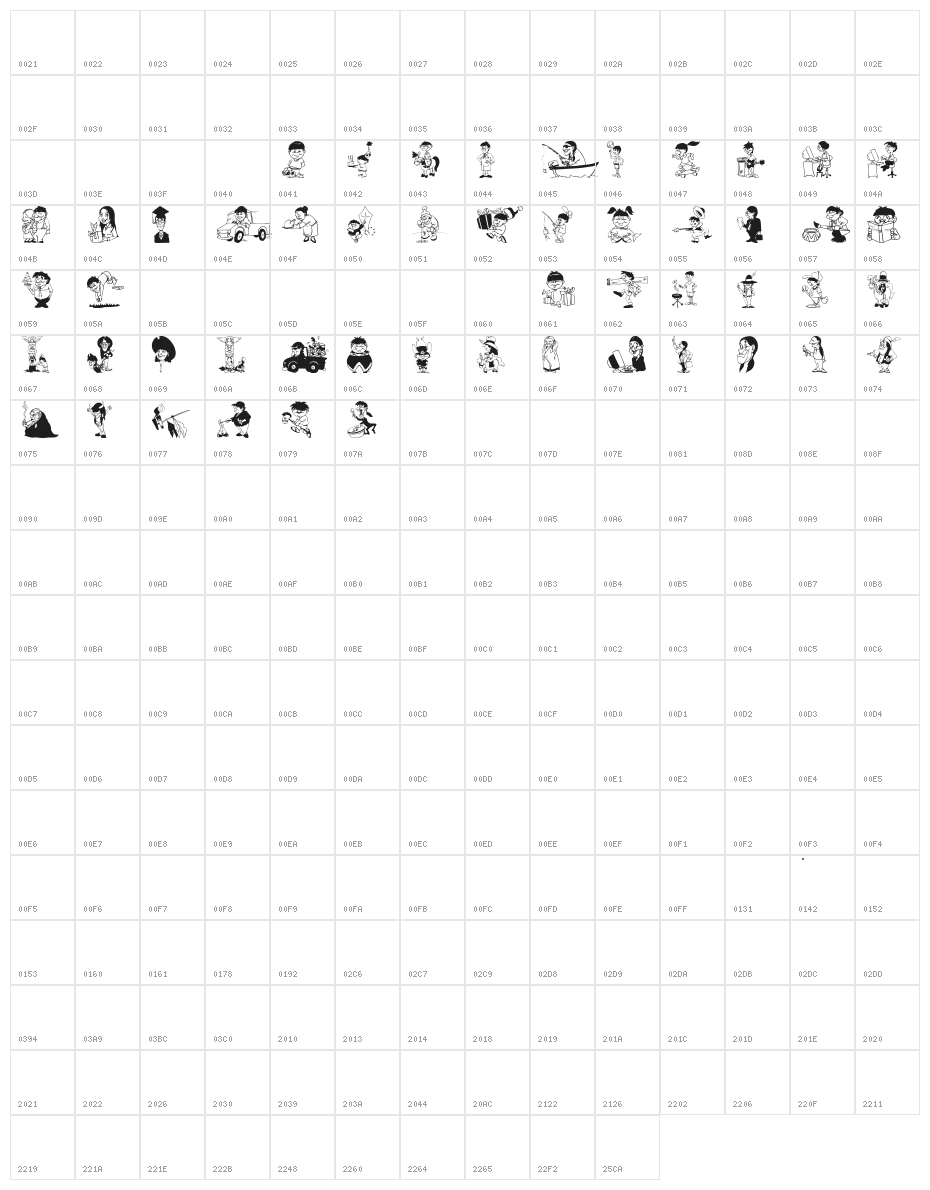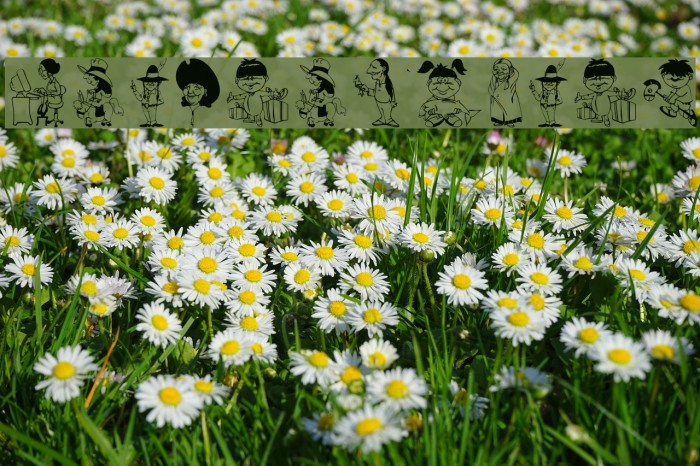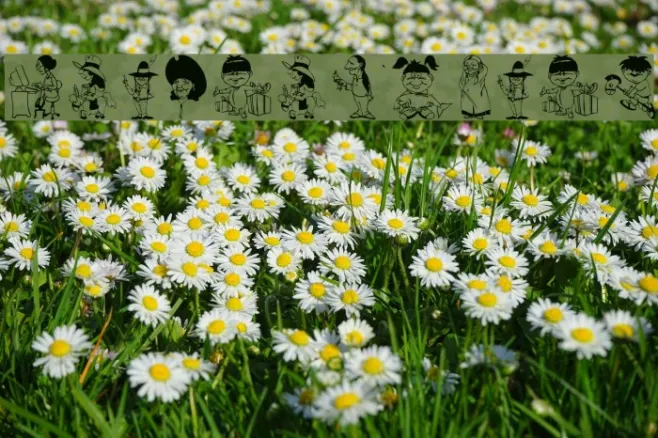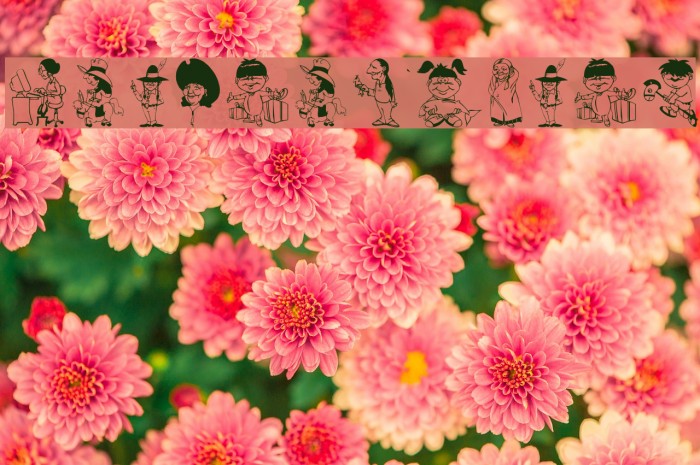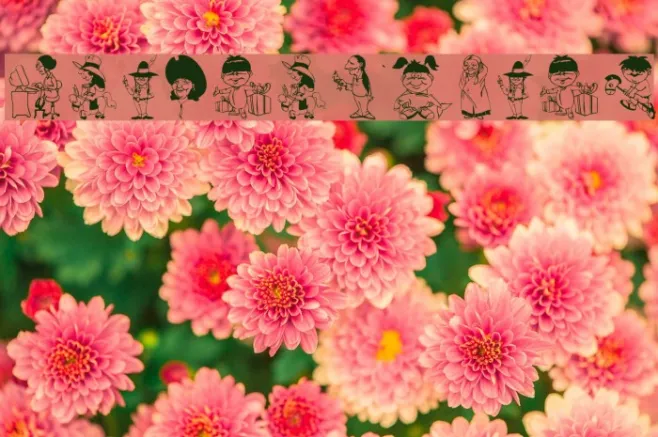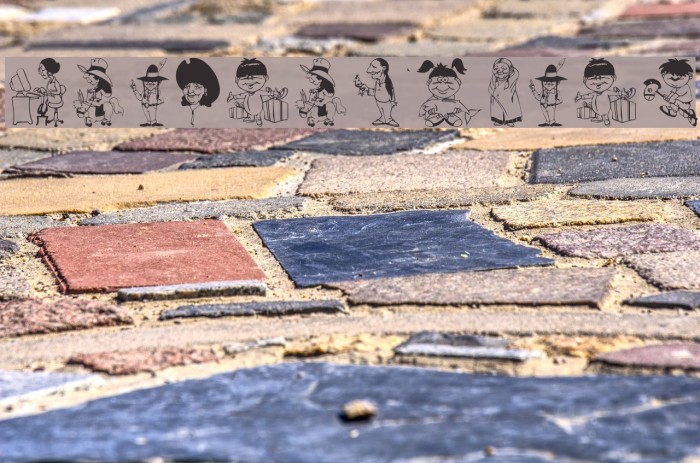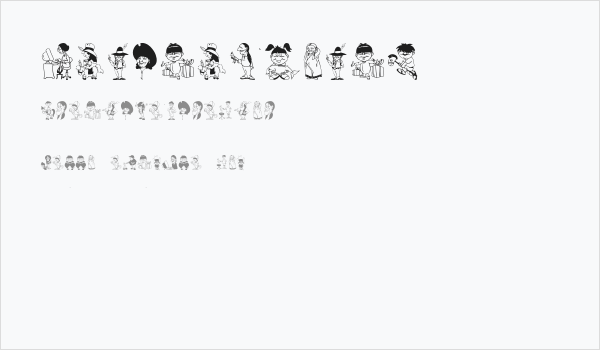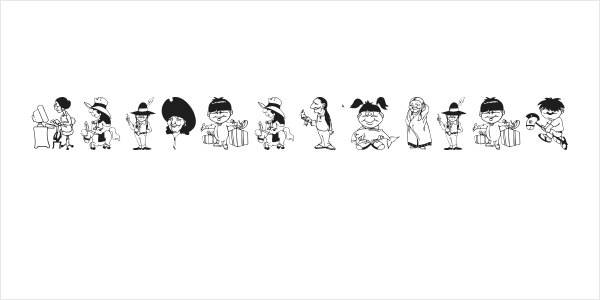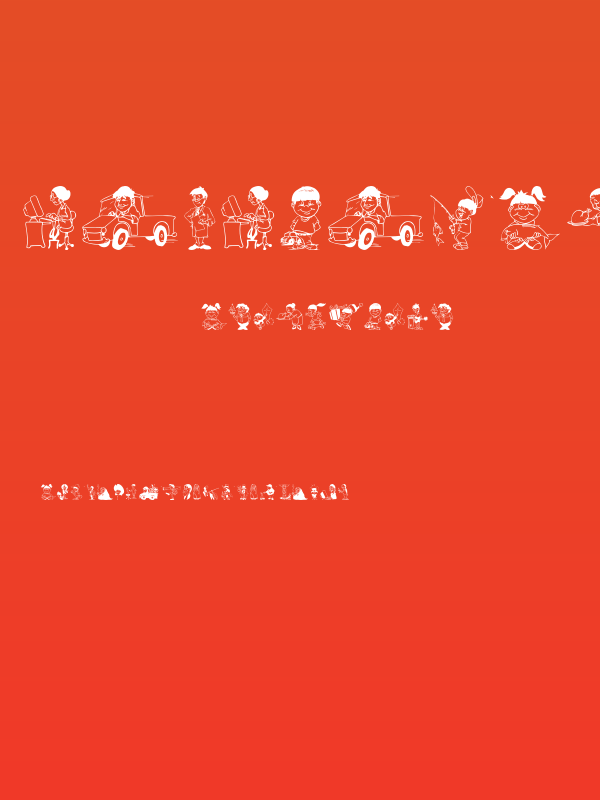
Indians Today Font
Indians Today Description
A decorative display font composed of playful cartoon illustrations representing each character, with each letter and symbol depicted as a unique caricature or scene. The style is whimsical and detailed, with high visual interest and strong individuality for each glyph.
| Overall Style | Decorative, Whimsical, Playful |
| Use Case | Headlines, Posters, Logos, Themed graphics |
| Proposed Projects | ChildrenΓ’β¬β’s books, educational materials, posters, event invitations, playful branding. |